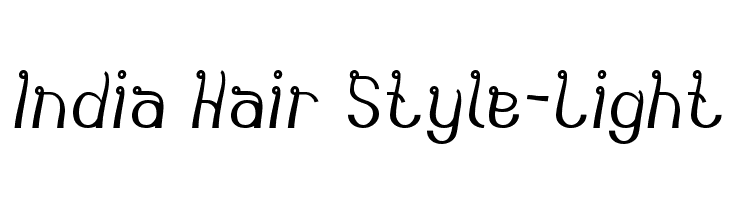
A playful, decorative font with unique curls and loops, inspired by traditional Indian art.
A playful and whimsical font with rounded terminals and consistent stroke width.